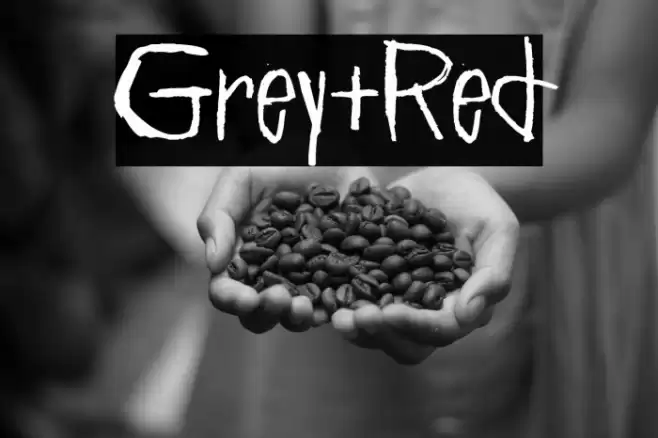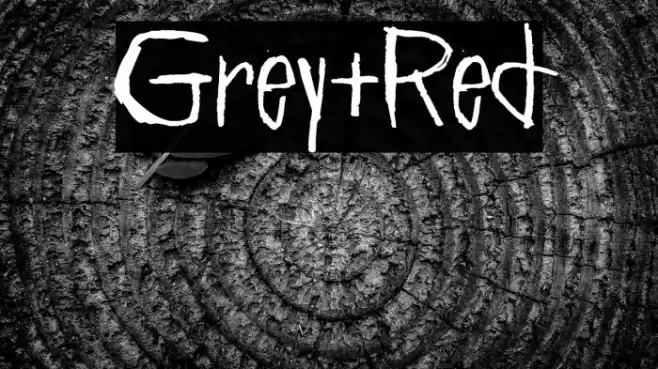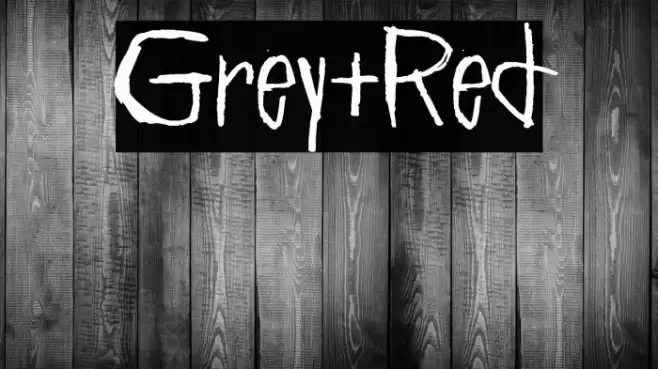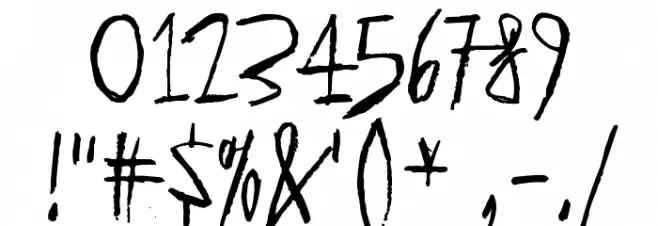
Grey+Red Font
This font features a raw, hand-drawn aesthetic with a distinctly grunge and artistic flair. The letters are unevenly weighted, with strokes that vary in thickness, giving it a dynamic and energetic feel. The characters have a slightly distressed appearance, as if they were painted with a brush or marker, adding to its expressive and bold nature. The uppercase and lowercase letters maintain a consistent style, while the numbers and special characters complement the overall look with their unique, handcrafted design. This font is ideal for projects that require a touch of creativity and individuality.
A grunge, hand-drawn font with dynamic, uneven strokes and a distressed appearance from Regular fonts.
- Font: Grey+Red
- Proposed Projects: Perfect for album covers, posters, street art-inspired designs, and edgy branding projects.
- Overall Style: Grunge, Artistic
- Use Case: Headlines, Logos, Artistic projects